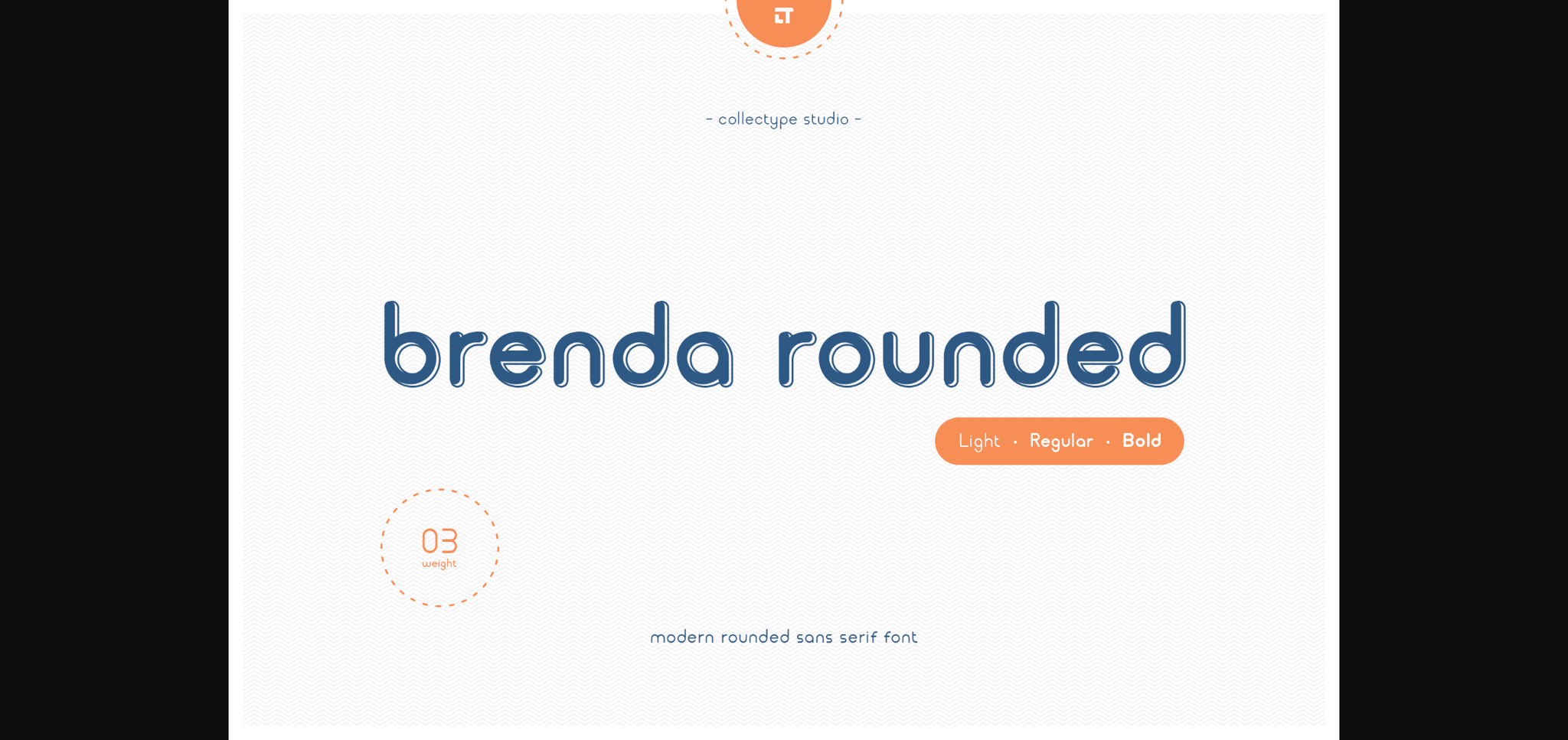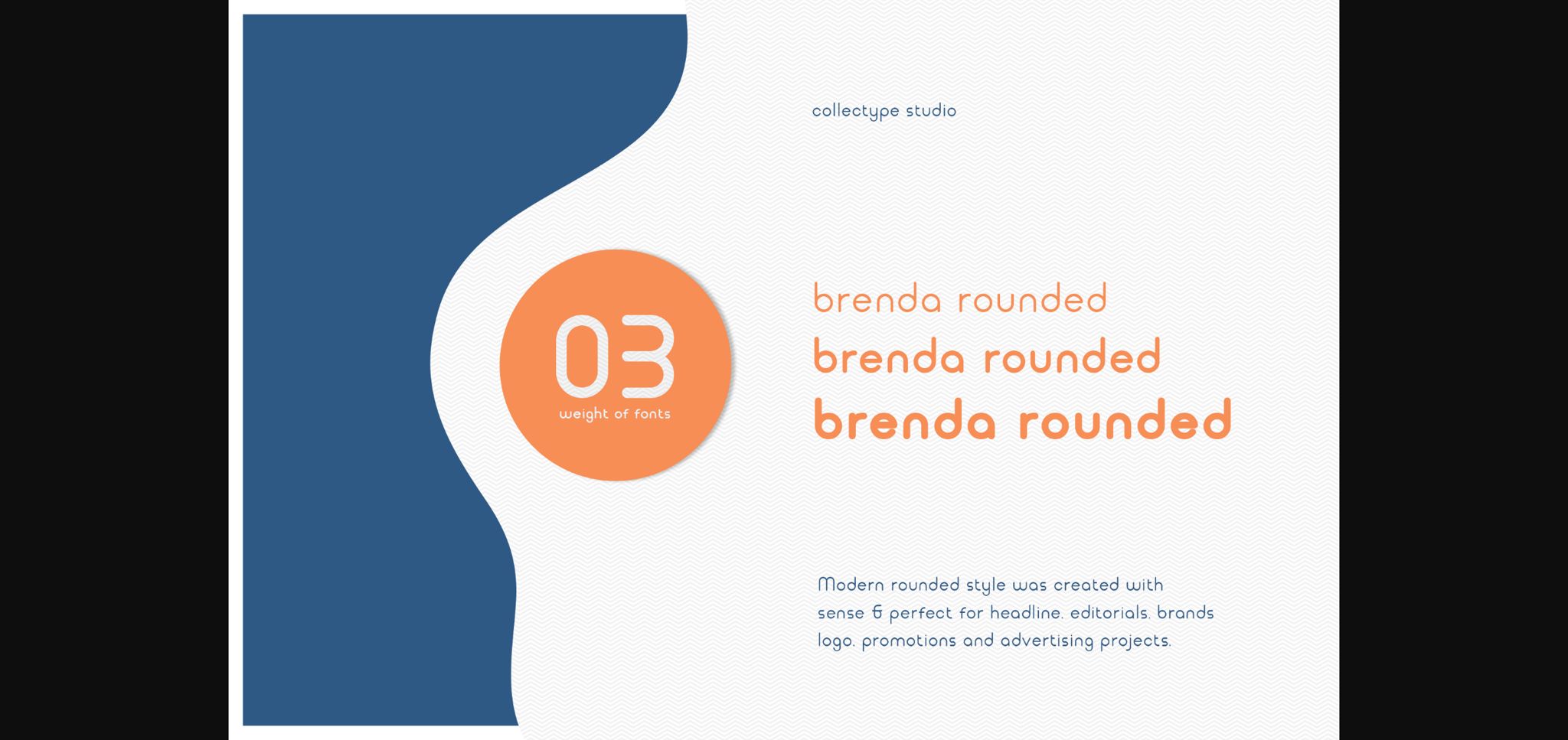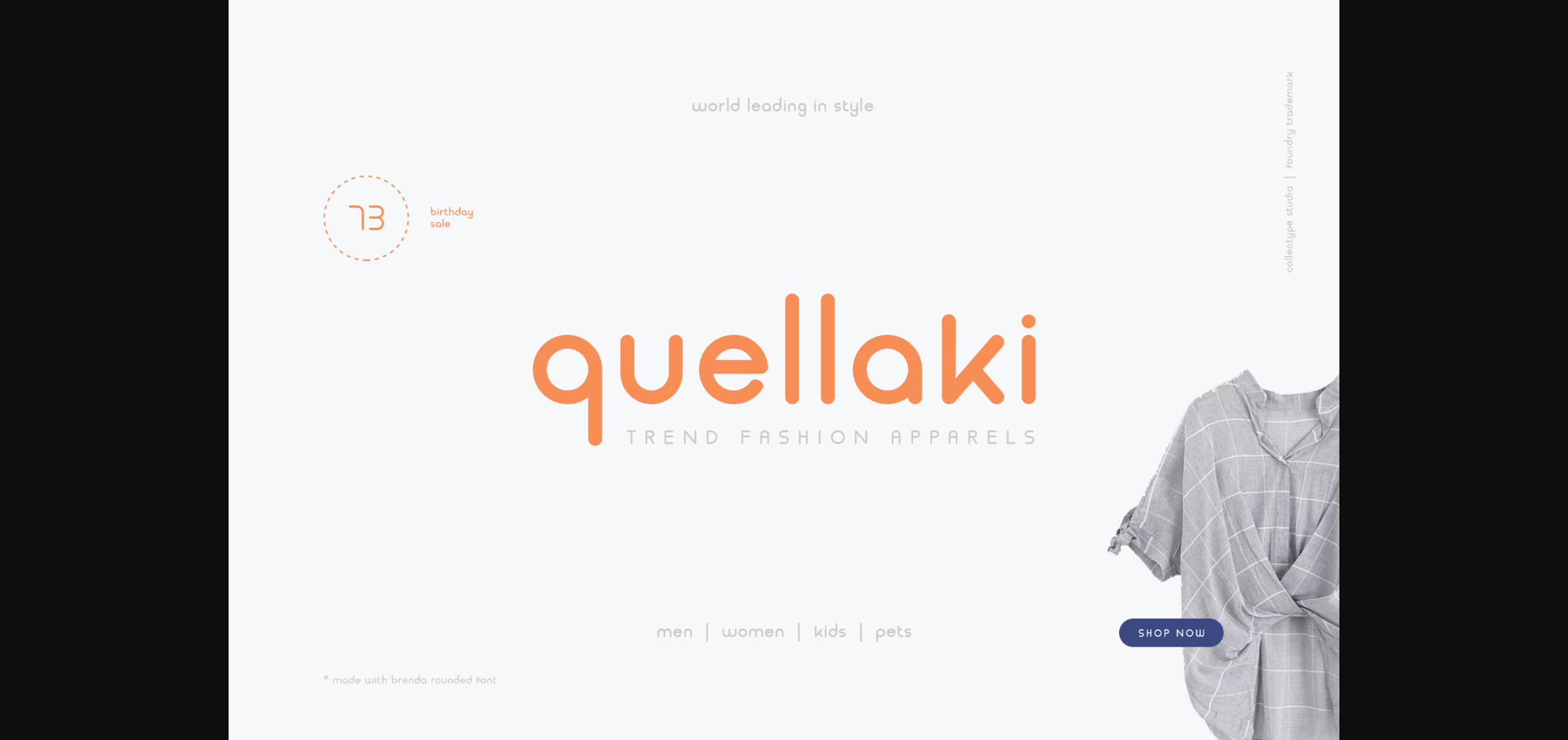
About Brenda Rounded Font
Brenda Rounded is a modern sans serif, carefully handcrafted to become a true favorite. Its casual charm makes it appear wonderfully down-to-earth, readable and, ultimately, incredibly versatile. Brenda Rounded will look outstanding in any context, whether it’s being used on busy backgrounds or as a standalone headline!